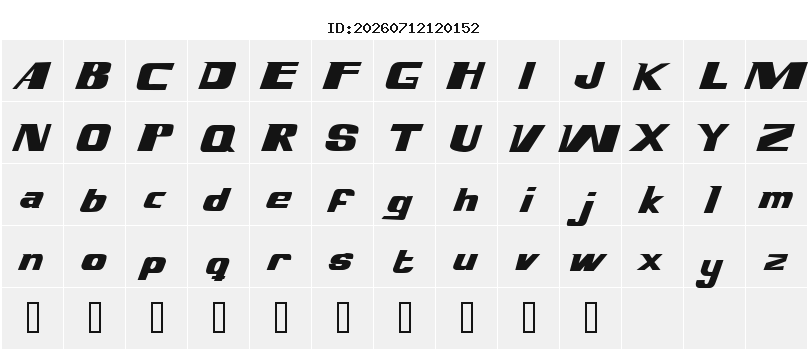
Magnump.i. Preview
• Font Name: Magnump.i.
• Font ID: Macromedia Fontographer 4.1.5 Magnum_p.i.
• Full Font Name: Magnump.i.
• Version: Macromedia Fontographer 4.1.5 01-08-08
• PostScript Name: Magnumpi
• Character Count: 61
About Magnump.i..ttf
Magnump.i..ttf is a modern, elegant sans-serif font designed for ultimate readability and visual harmony. Perfect for branding, headlines, web design, and print materials.